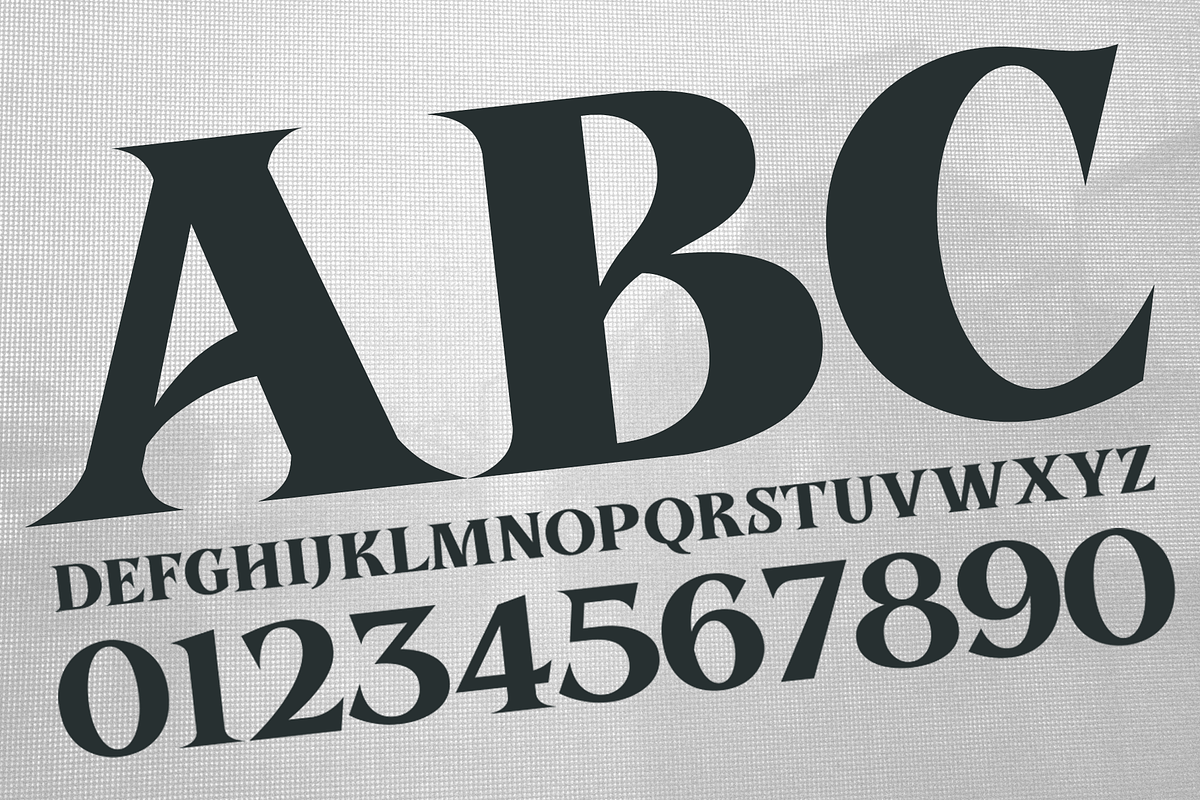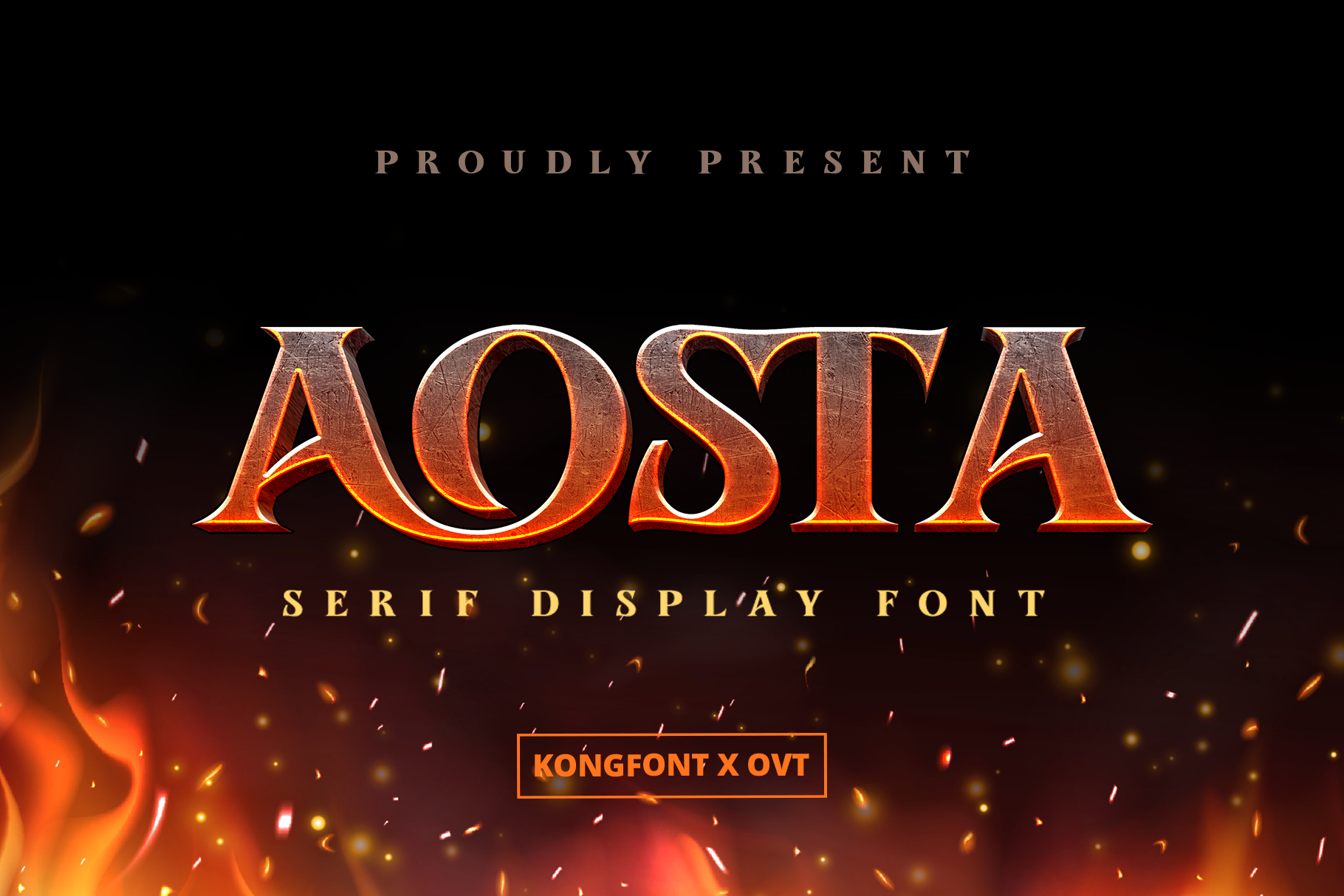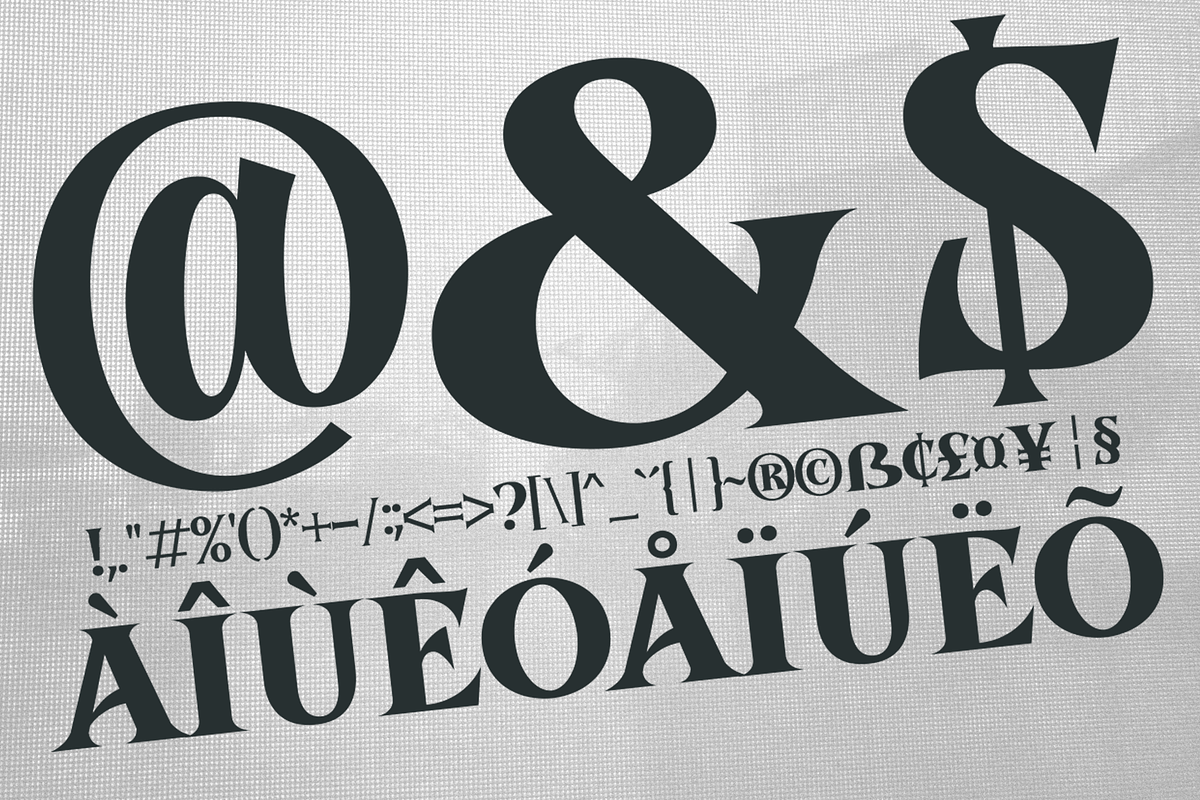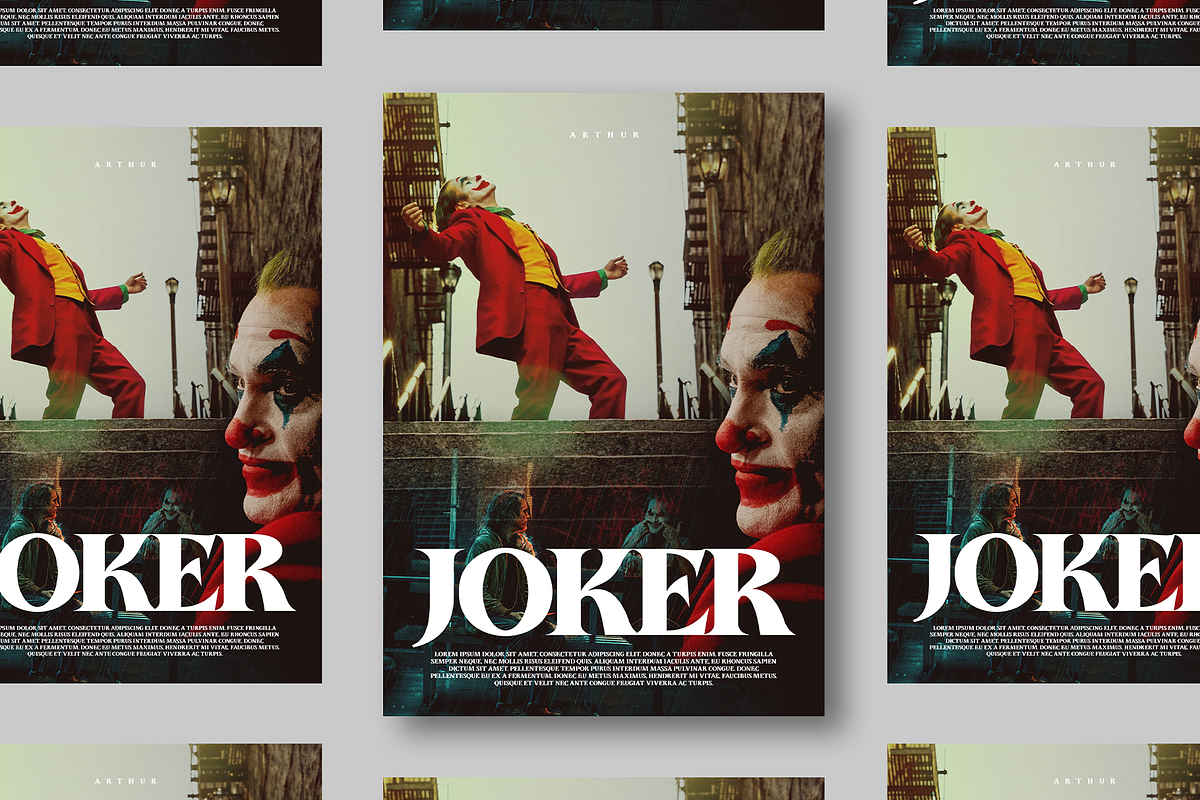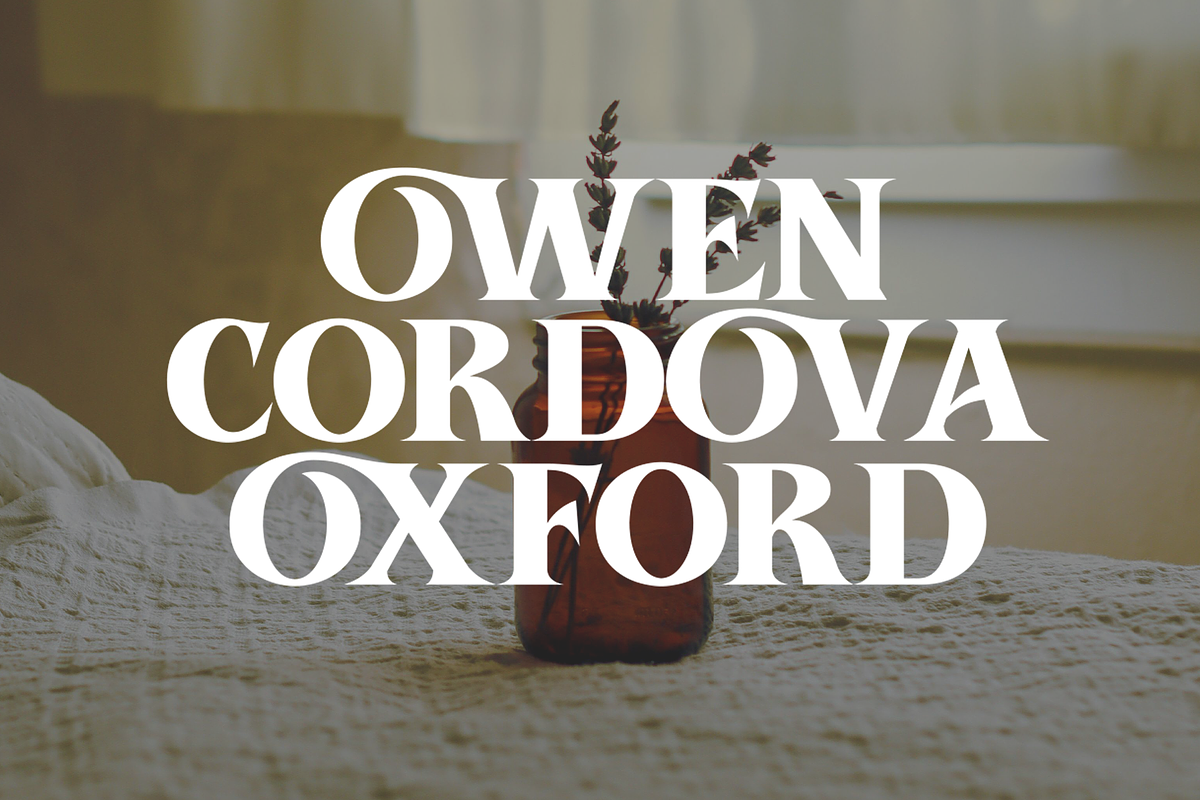
Aosta - Serif Display Font
Introducing "Aosta," a serif display font that seamlessly blends classic elegance with modern design elements. Perfect for graphic designers, typographers, and creatives who want to add a touch of sophistication to their projects, Aosta delivers a refined and timeless aesthetic.
Ideal for editorial design, branding, advertising, and high-end packaging, Aosta’s elegant serifs and well-balanced proportions provide a distinguished and professional look. Each character is meticulously crafted to ensure clarity and visual appeal, making it suitable for projects that require both readability and an upscale appearance.
The "Aosta" font includes a complete set of uppercase and lowercase letters, numbers, and punctuation marks, offering versatility and flexibility for various design applications. Whether you're creating luxurious branding or sophisticated editorial layouts, Aosta enhances your work with its classic yet contemporary style.
Elevate your designs with Aosta, a serif display font that embodies the perfect blend of tradition and